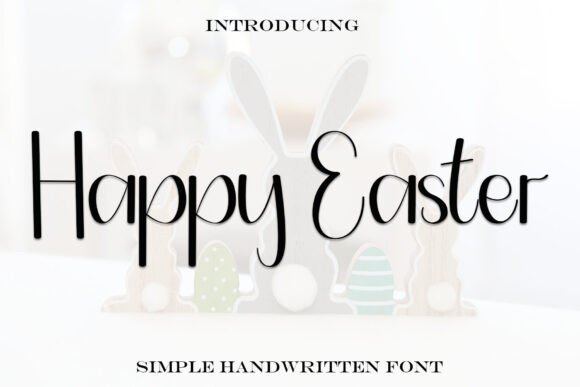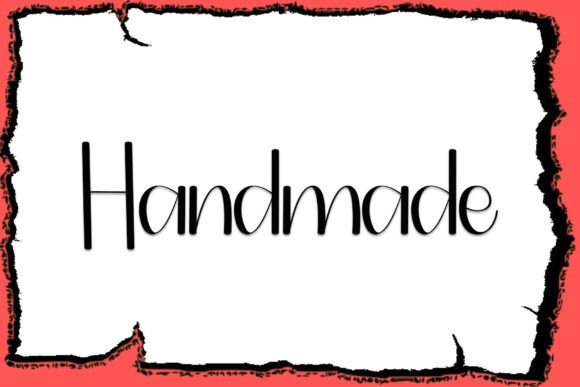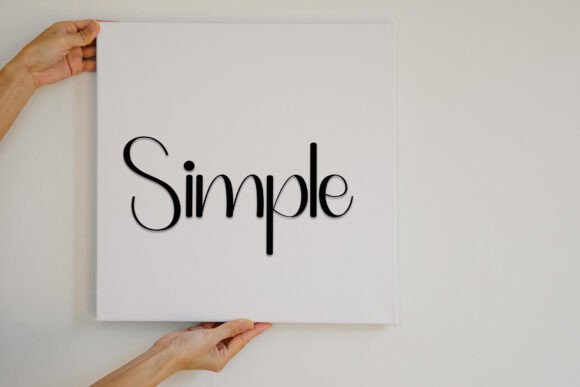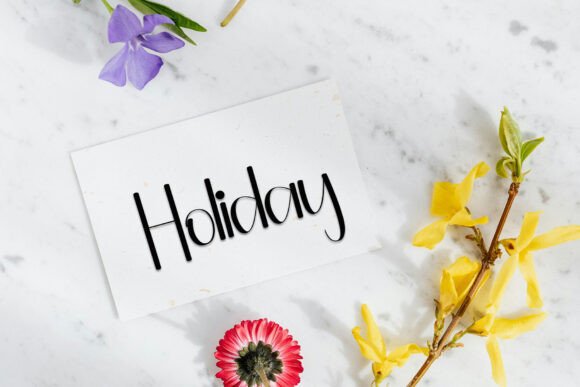
Happy Easter Font
About the Happy Easter Font
Let us introduce you to Happy Easter Font, where timeless design meets modern craftsmanship. Happy Easter is a sweet and cursive handwritten font. This gentle font will look gorgeous on a variety of design ideas. It will add a joyful and romantic touch to each of your projects! Perfectly fit for branding, logo, wedding things, greeting cards, fashion, lookbook, marketing promotion, and any time you want your design to look fancy and elegant but still casual.
Happy Easter’s cursive style excels in headlines, short text blocks on invitations or greeting cards, and logo design where its gentle, romantic feel is an asset. It’s less suitable for body text or UI elements due to its low readability in extended passages.
The font’s personality is undeniably cheerful and friendly, making it perfect for brands focused on celebrations, artisanal goods, or feminine products. Pair it with a clean sans-serif like Montserrat for a contemporary feel, or a classic serif like Garamond for a more traditional, elegant look. A simple geometric sans-serif could also provide a pleasing contrast.
Avoid using it with overly bold or heavily stylized fonts which would clash with its delicate nature. Consider a script font with a similar weight for supporting text if more cursive elements are desired.
Happy Easter Font Usage Examples
Happy Easter Font Example